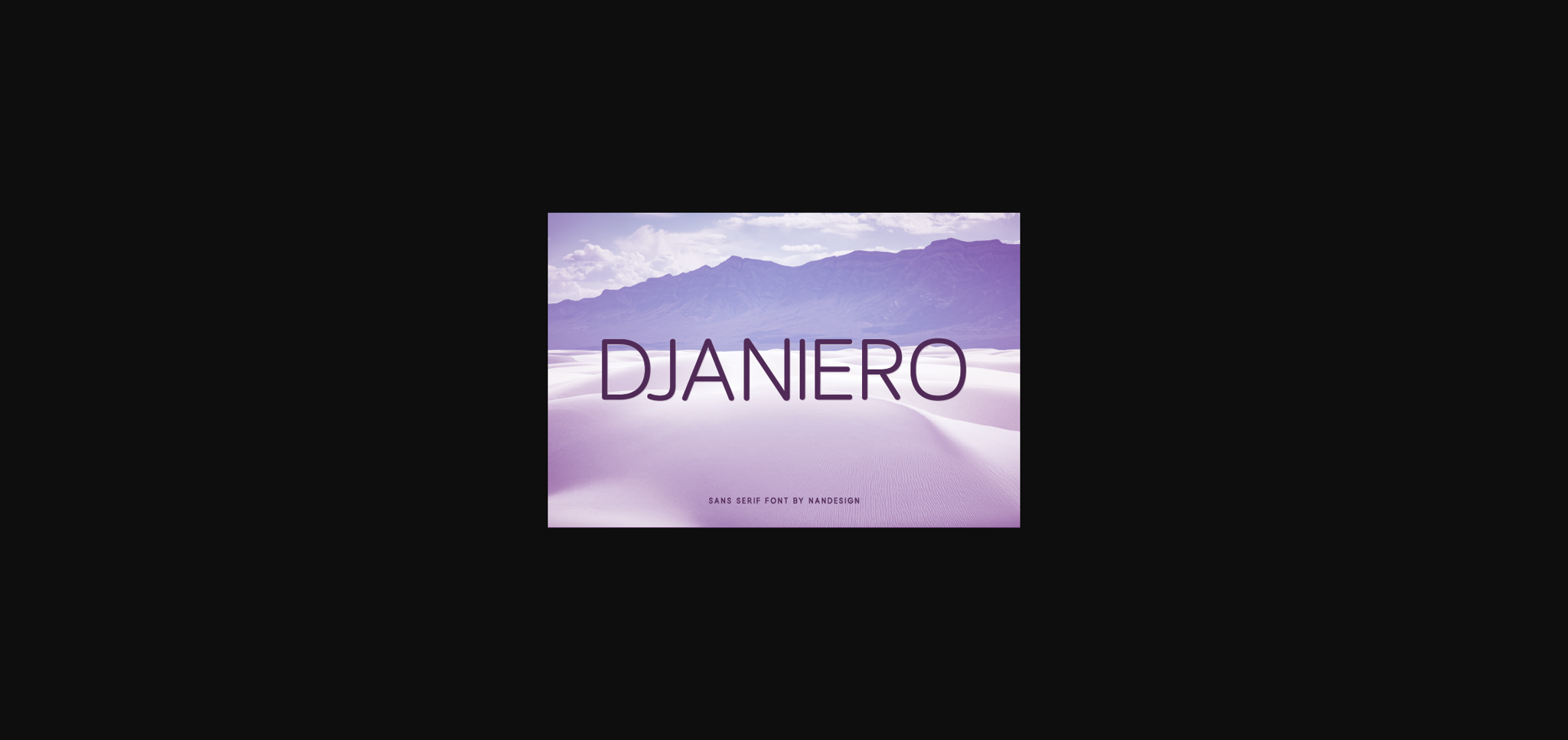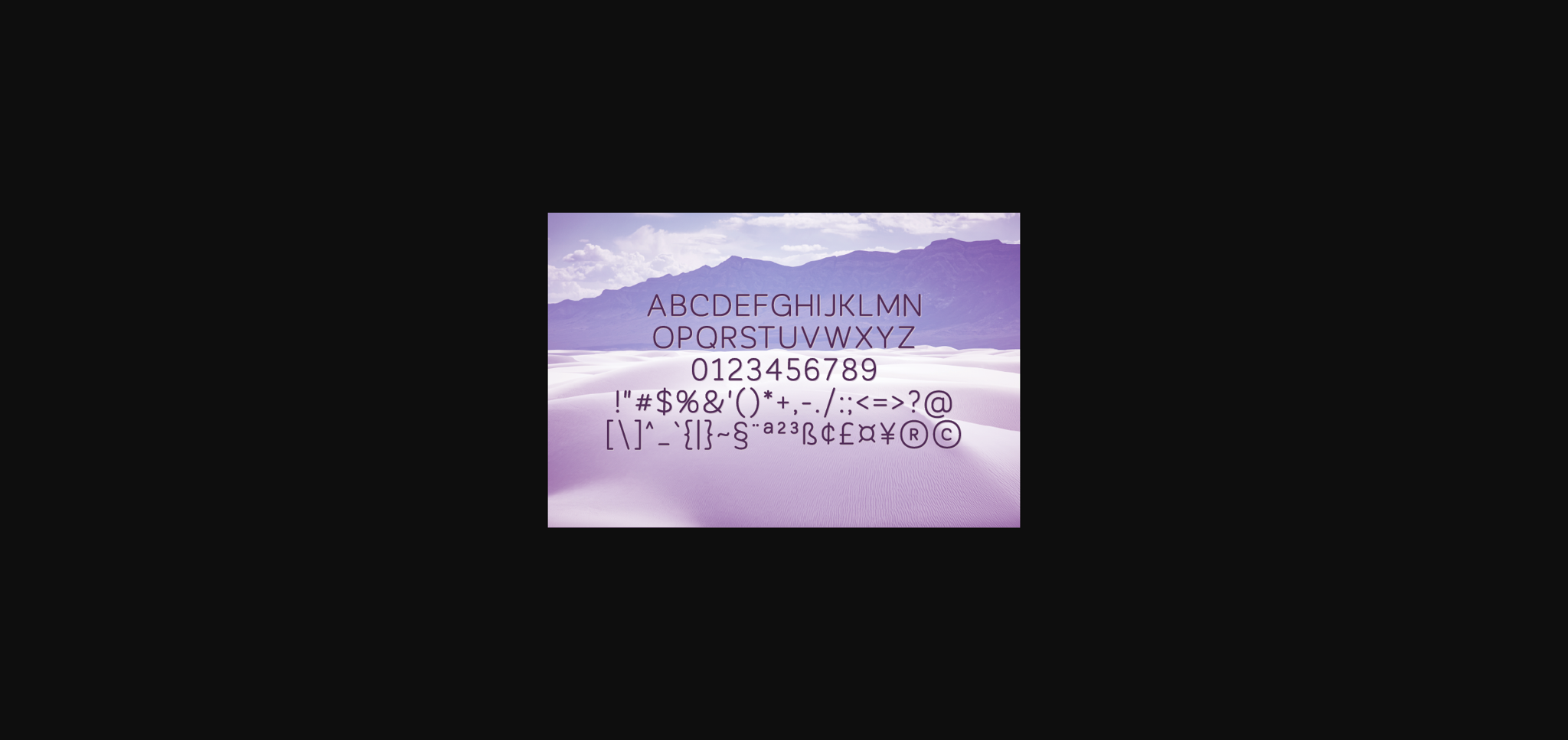
Djaniero Font
About Djaniero Font
Djaniero is a simple and neat sans serif font, designed to complement every project you’re working on.
Use it to create beautiful headings, invitations, logos, and so much more!